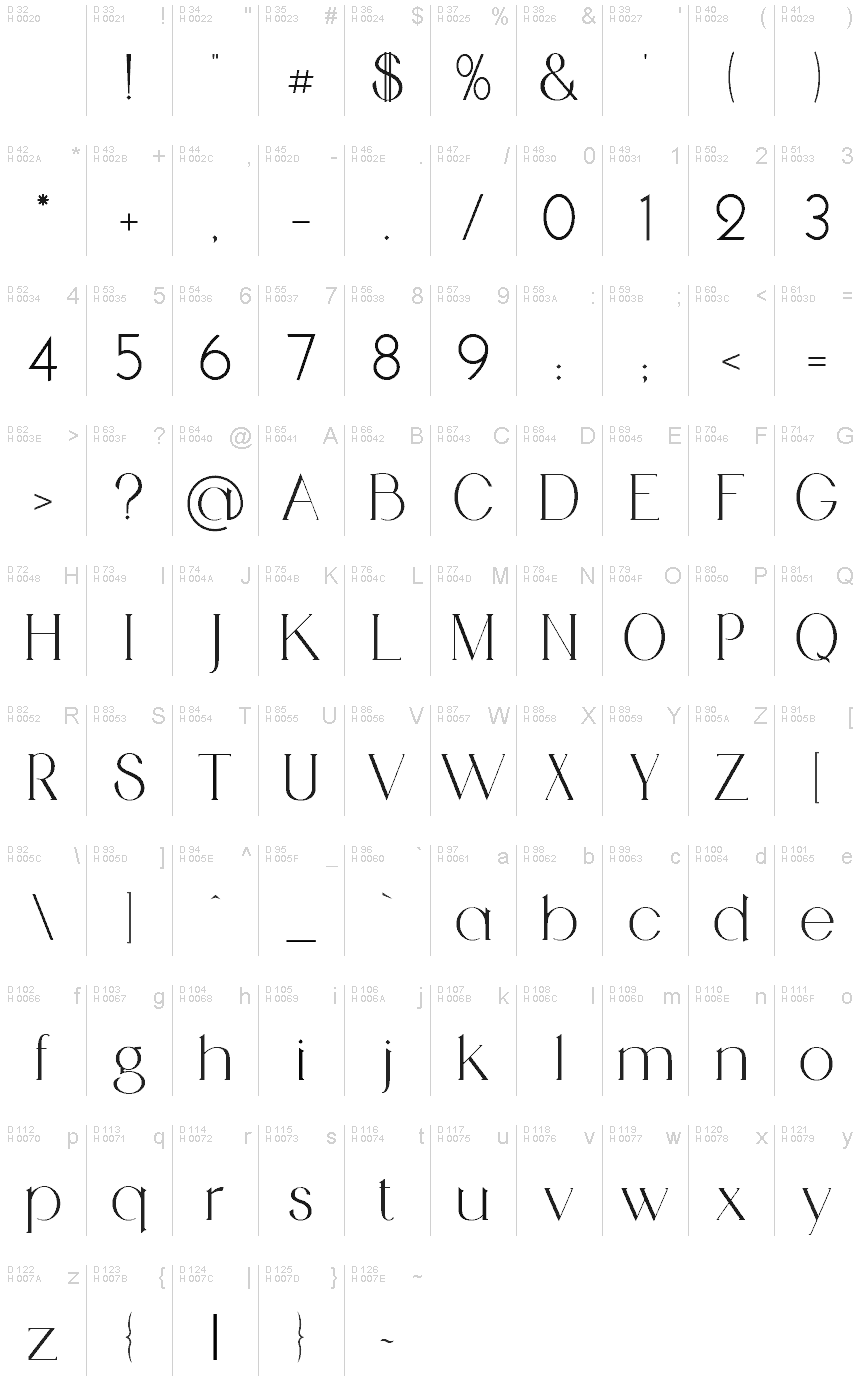
Medhurst
Medhurst is a captivating serif font that exudes a timeless elegance. Its delicate strokes and refined curves create a sophisticated, yet approachable aesthetic, making it an excellent choice for a wide range of design applications. From editorial layouts to branding projects, Medhurst's refined sophistication lends itself beautifully to both modern and traditional design sensibilities.
Whether used for headlines, body copy, or decorative elements, this font promises to elevate the visual impact of any project, while remaining highly legible and easy to read.